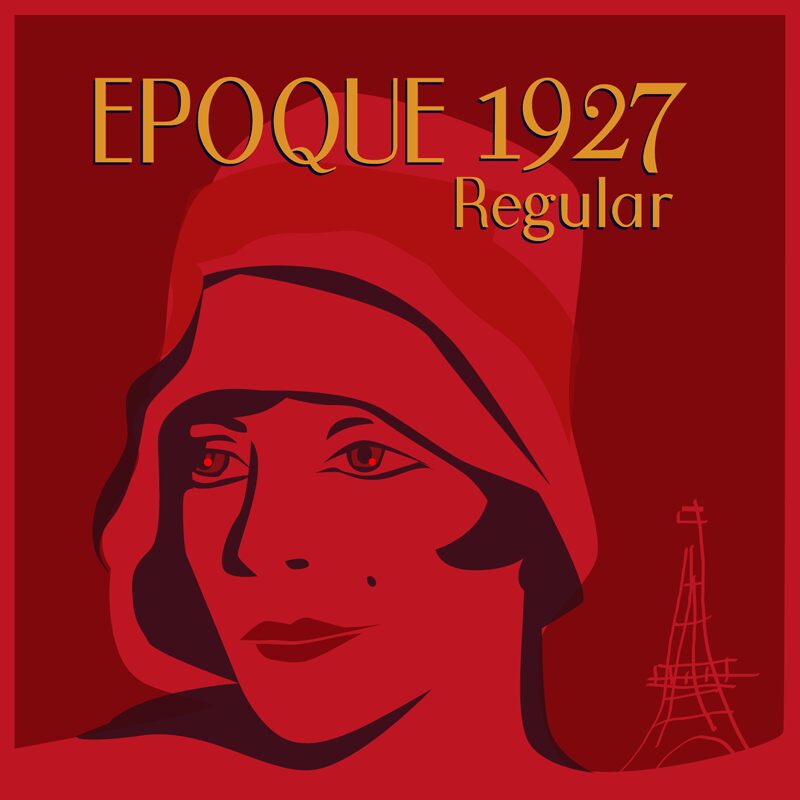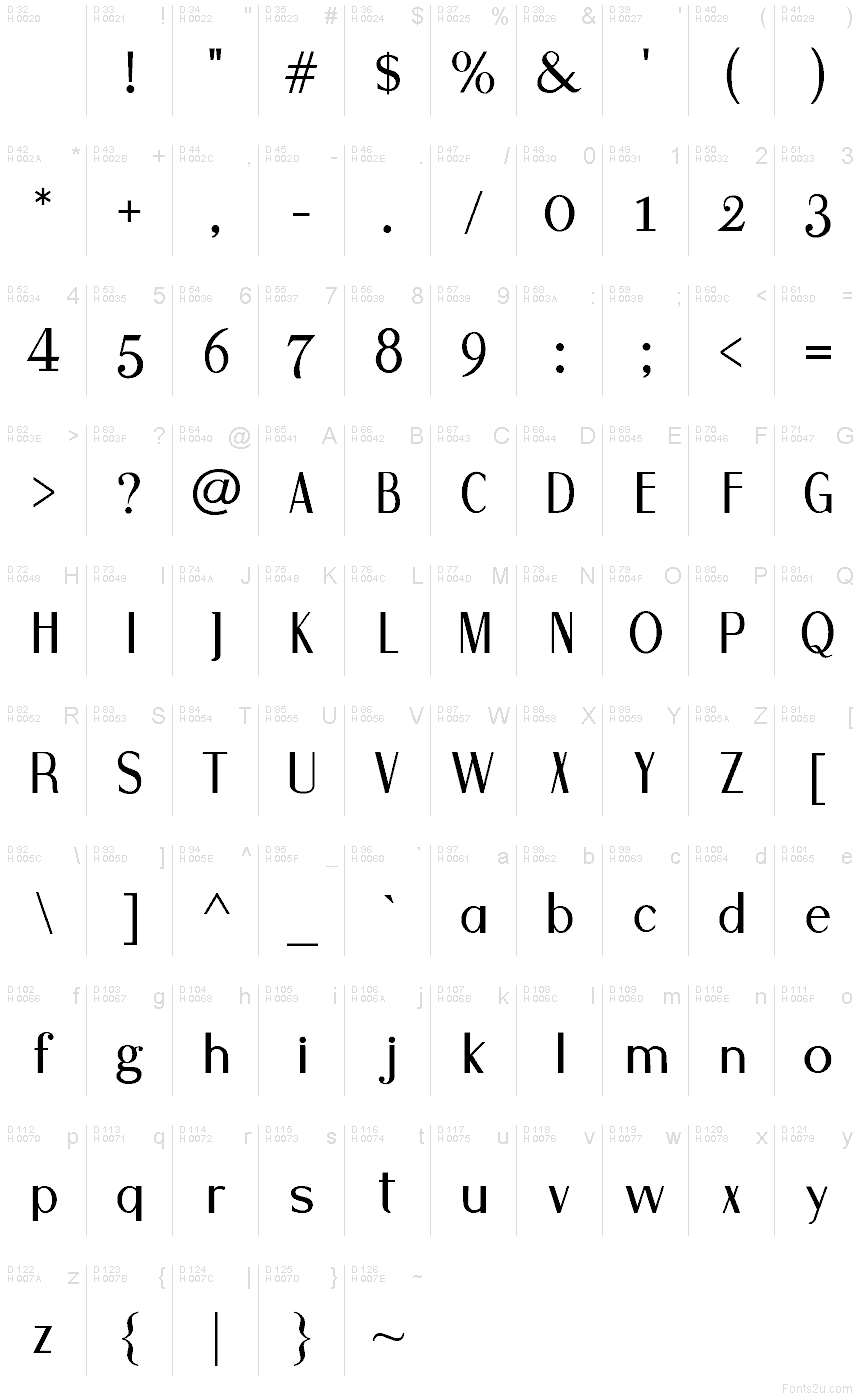
1927 Epoque Regular
1927 Epoque font by Galdino Otten Fonts is a free Art Deco serif display font. Built on crisp contrast and razor-fine hairlines, it carries that late‑’20s poise—sleek shoulders, tight curves, and elegant, blade-like serifs that catch the light. Set large, the rhythm feels luxurious and composed, giving headlines a perfume-ad sheen without slipping into pastiche.
Using 1927 Epoque, your titles and logos gain instant vintage glamour for fashion branding, magazine covers, cocktail bar menus, event posters, perfume or wine labels, and book jackets. This free font shines on high-impact, short phrases where spacing can breathe; give it generous leading and slightly relaxed tracking. Pair with a clean geometric sans for body copy to keep the spotlight on its glinting, high-contrast forms.